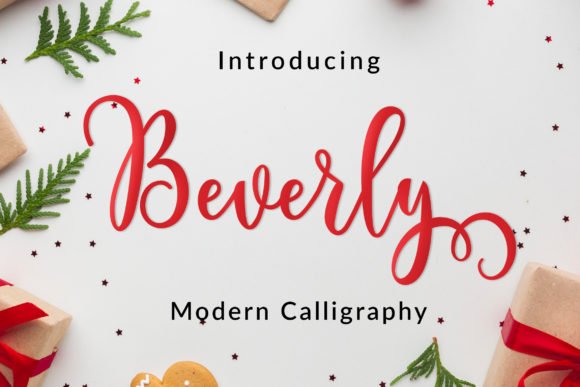
Discover the Beauty of Handwritten Charm
There’s nothing quite like the thrill of sitting down at your desk, surrounded by blank paper and an endless array of creative possibilities. You’ve got a project in mind, a vision to bring to life, and the world is your canvas. And then, it hits you – the perfect font to match your artistic vibe. For many designers, that font is the Beverly Script Font, a gorgeous script that radiates authenticity and life.
With its bold and sweet charm, the Beverly Script Font is the perfect addition to any design project. Whether you’re crafting a wedding invitation, a birthday card, or a brand logo, this font is sure to add a touch of personality and whimsy. Its value lies in its versatility – it’s perfect for both formal and informal designs, making it a must-have for any designer looking to add a little extra something special to their work.
Beverly Script Font Key Features
- Font Style: Handwritten Script Font
- Unique Characteristics: Elegant, luxurious, and classic feel, ideal for formal invitations, wedding stationery, and high-end branding.
- Perfect for headings, titles, and short paragraphs where a touch of elegance is needed.
- Font Family: 1 Font Family (Beverly Script)
- Comprehensive character set, including uppercase and lowercase letters, numbers, and punctuation marks.
Beverly Script Font Review
Overall, I’m impressed with the Beverly Script Font, a beautifully crafted script font that’s perfect for adding a touch of elegance to your designs. Here are some things that work well: ✨
- Unique and elegant design that’s perfect for invitations, wedding stationery, and other formal events.
- Highly customizable, with a wide range of font styles and sizes available.
- Works well in both print and digital formats.
- The font can be quite ornate, which may make it difficult to read for some users.
- It may not be the best choice for body text or large blocks of text.
- The font is not ideal for headings or titles with multiple lines of text.
Overall, I think the Beverly Script Font is a beautiful addition to any designer’s toolkit. While it may have some limitations, it’s perfect for adding a touch of elegance and sophistication to your designs.
Tips for Getting the Most Out of the Beverly Script Font
Use the Beverly Script Font for titles, headings, and other attention-grabbing text elements. Pair it with a clean sans-serif font for body text to create a visually appealing contrast. Experiment with different font sizes and colors to add emphasis and create visual interest.
The Beverly Script Font is ideal for:
– Event branding and signage
– Blog and website titles
– Social media graphics and promotions
Alternatives to Beverly Script Font
The Great Vibes Font is a beautiful, elegant script font perfect for creating a warm and inviting atmosphere. It’s ideal for use in wedding invitations, event branding, and packaging design. Great Vibes Font is more ornate and decorative compared to Beverly Script Font, making it suitable for special occasions and luxury brands.
The Crimson Text Font is a high-quality script font with a vintage feel. It’s suitable for use in books, magazines, and other printed materials that require a sophisticated and timeless look. Compared to Beverly Script Font, Crimson Text Font is more formal and less ornate, making it ideal for academic and professional settings.